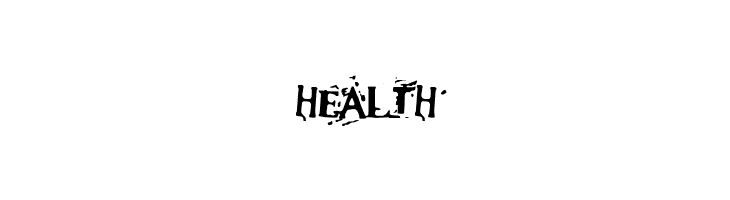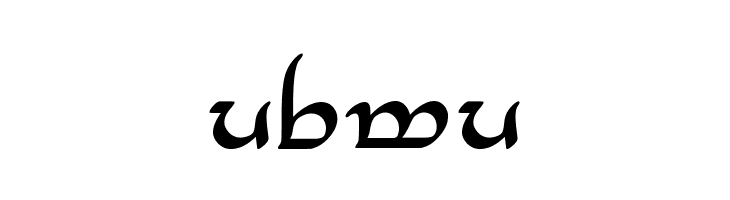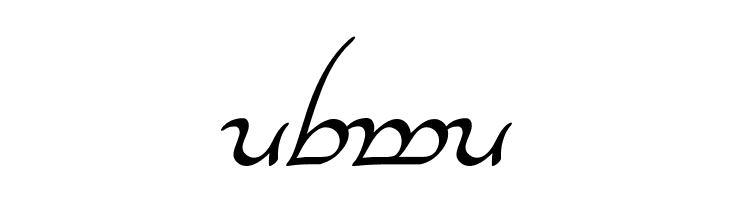
• Tengwar Annatar Alt Bold
A bold, decorative script inspired by the Tengwar script with intricate and flowing characters.
• Tengwar Annatar Alt Bold Italic
An elegant, bold, and italic script font with a mystical, calligraphic style.
• Tengwar Annatar Alt Italic
A decorative script with flowing, ornate characters inspired by elvish writing.
• Terminal F4
A modern, geometric font with clean lines and a structured appearance.
• Terror2005
A bold, distressed font with a grungy, textured appearance.
• Terry Script
A lively, cursive script font with smooth, flowing lines and a handwritten appearance.
• TestroomThree
A decorative and abstract font with geometric shapes and playful elements.
• Textura Modern
A classic blackletter font with intricate, sharp angular strokes and a medieval aesthetic.
• Tha Boukagnes
• The Art of Illuminating